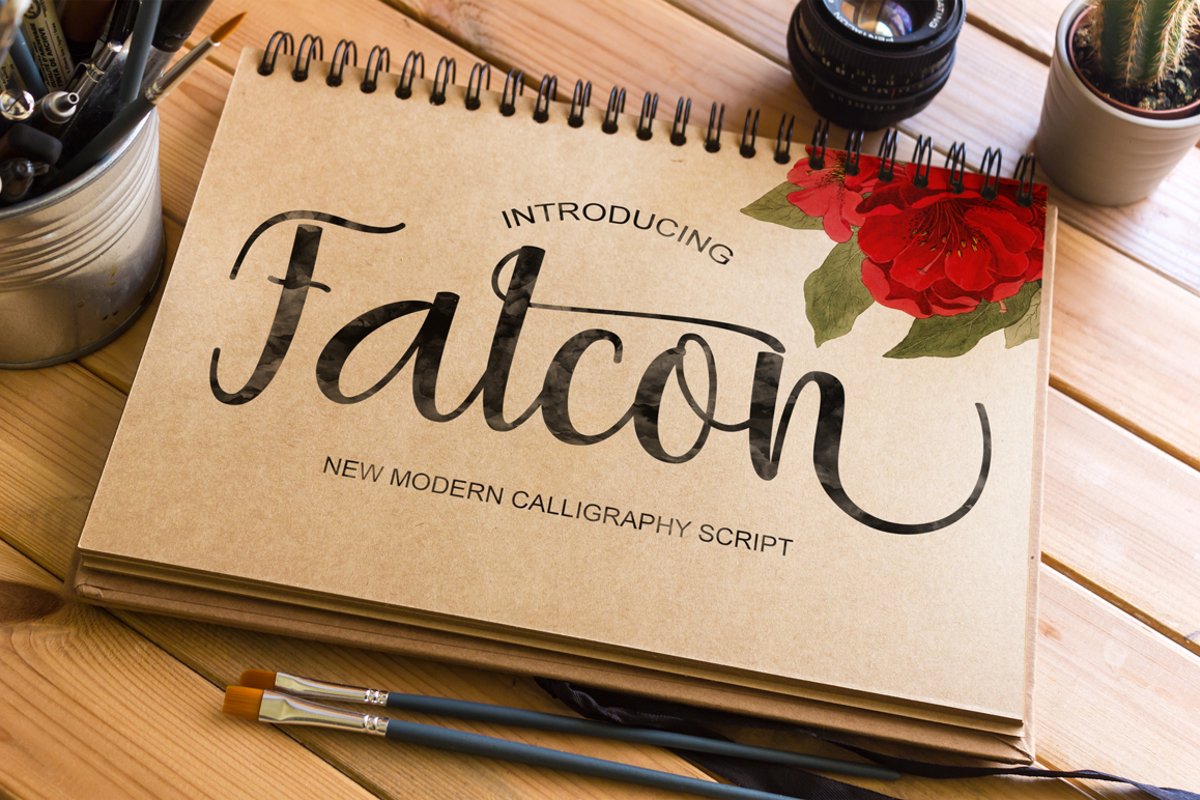
Falcon
Falcon is modern script font, every single letters have been carefully crafted to make your text looks beautiful. With modern script style this font will perfect for many different project ex: quotes, blog header, poster, wedding, branding, logo, fashion, apparel, letter, invitation, stationery, etc.
The Features of this fonts is:
Standart ligatures
Stylistic Alternates
PUA Unicode (Private Use Areas)